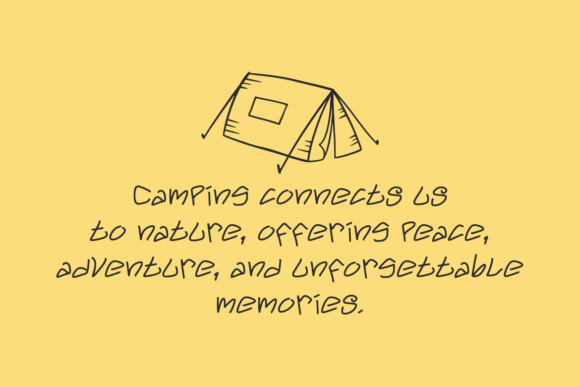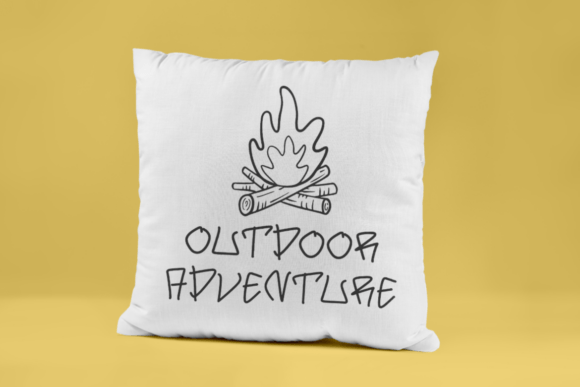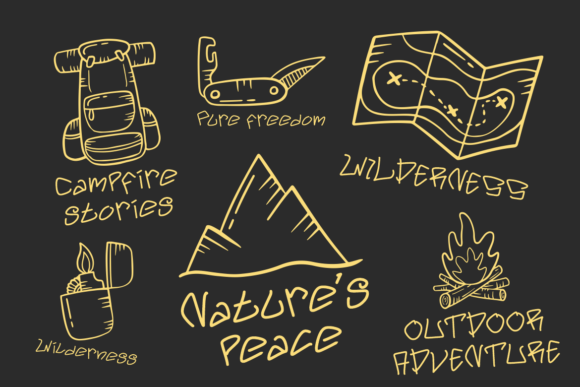
Introduction to Meandor Font
Do you remember the thrill of doodling in the margins of your notebook as a child, watching your scribbles transform into a secret language that only you understood? The freedom of creating without rules or boundaries was exhilarating, and it’s this same carefree spirit that Meandor Font embodies.
As a designer, you’re constantly on the lookout for that perfect font that brings a touch of personality to your creative project. Meandor Font is more than just a font – it’s a design resource that adds a dash of whimsy and joy to any layout. Its monoline handwriting style, complete with uniform stroke weights and rough edges, is reminiscent of hand-drawn doodles and gives your design a unique, high-quality feel.
Whether you’re working on a branding project, crafting invitation cards, or setting the title for an indie movie poster, Meandor Font is the perfect addition to your design arsenal. And the best part? It’s available for free download, making it an accessible and valuable resource for designers of all levels.
Key Features of Meandor Font
- Meandor Font is a unique, high-quality design resource ideal for creative projects that require a distinctive touch.
- Meandor Font features a transparent background, allowing for seamless integration with any design or background.
- Meandor Font comes in a variety of sizes, from small to extra-large, making it suitable for a range of design applications.
- The unique meandering design of Meandor Font makes it an excellent choice for creative projects that require a touch of elegance and sophistication.
Honest Review: Meandor Font
As a designer, I’ve had the pleasure of working with numerous fonts, and the Meandor Font is definitely one that stands out. I was initially drawn to its unique and elegant design, making it perfect for a creative project that requires a touch of sophistication.
What works well with the Meandor Font is its versatility. It comes with a transparent background, allowing for seamless integration with any design element. The font is also available for free download, making it an excellent design resource for those on a budget. I’ve used it in a variety of projects, from branding materials to digital graphics, and it always delivers.
- ✨ Unique and elegant design
- ✨ Versatile and easy to use
- ✨ High-quality design resource
However, there are a few limitations to consider. The font may not be suitable for projects that require bold or dramatic text, as its delicate design can get lost. Additionally, some users may find the font’s style a bit too minimalist, which can be a drawback for those who prefer more ornate designs.
Overall, I’m impressed with the Meandor Font. Its high quality and versatility make it an excellent addition to any designer’s toolkit. While it may have its limitations, I believe it’s a valuable design resource that’s definitely worth exploring.
The Meandor Font is a high-quality design resource perfect for any creative project. This font features a transparent background, making it versatile and easy to use in various design applications.
The Meandor Font is perfect for:
– Branding and logos
– Brochures and flyers
– Social media graphics
Tips for Getting the Most Out of Meandor Font
Experiment with different font sizes and colors to add visual interest to your design.